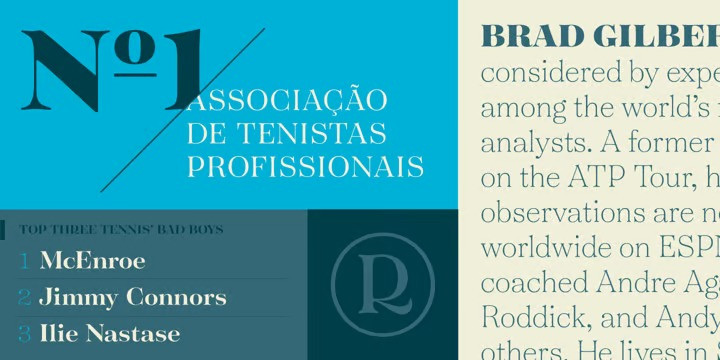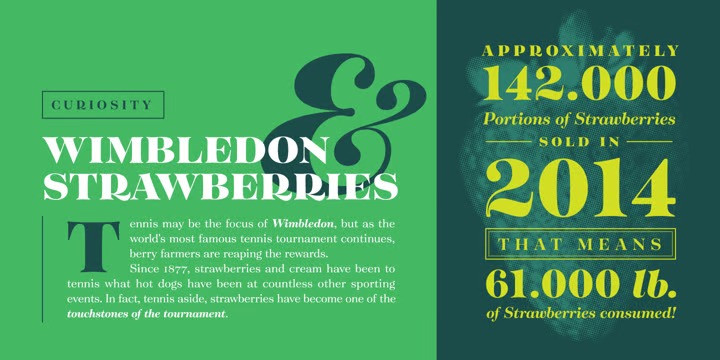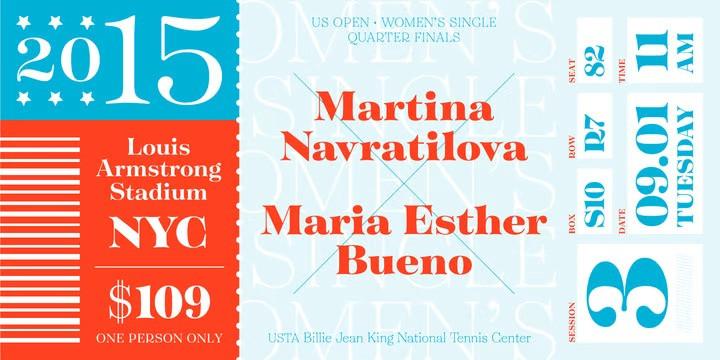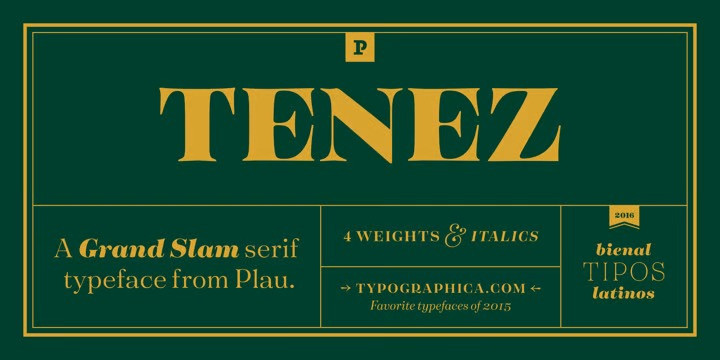
Tenez Font Family
Tenez Serif Font is a powerful neoclassical serif font family crafted & designed by Plau. Its origins are rooted in pointed nib calligraphy which can be seen in contemporary Didot and Bodoni inspired typefaces. But Tenez’s shapes are organic (these modern typefaces were originally cut by hand after all) – in fact that was the challenge we set from the start: to make a typeface as organic in construction as possible. This echoes some of late 19th century typefaces and advertising, yet we thought of it for contemporary uses. One of the several unique features of Tenez is its unusual Thin weight, in which the contrast between thin strokes and the black area left by the serifs makes for a typewriter-like personality. The italics provide a perfect counterpoint to the roman weights. Tenez was unapologetically conceived as a display typeface meant to be used large as in magazine openings, drop caps or everywhere there’s a need for elegant impact. The family includes support for almost all Latin languages available, figure sets for almost every conceivable occasion (tables, text, you name it), alternates for the quirky beautiful R (sometimes simpler is better, but not always!) and Q (with a nice big tail for that article opener). Tenez pairs really well with our no-frills sans-serif Motiva Sans and our cute vertical connected script Primot.